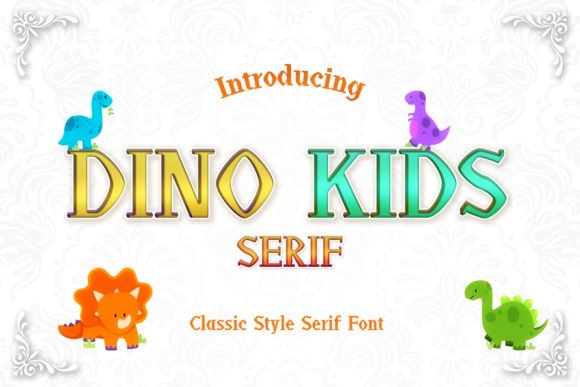
Unleash the Roar of Creativity with Dino Kids Font
Have you ever been working on a project, staring at a blank page, trying to find the perfect font to bring your ideas to life? That’s exactly where I was when I stumbled upon the Dino Kids Font. Its bold and authentic serif style immediately caught my attention, and I knew I had to learn more.
The Dino Kids Font is designed to be versatile and adaptable, making it the perfect addition to a wide range of projects. Whether you’re working on a children’s book, a poster, or a website, this font is sure to make your design stand out. As a designer, you know how valuable it is to have a font that can be matched to any project, and the Dino Kids Font delivers.
Dino Kids Font Key Features
- Character Count: The font contains a total of 260 characters, including uppercase and lowercase letters, numbers, and special symbols.
- Unique Characteristics: The Dino Kids Font features a playful, child-friendly design with rounded edges and a bold, yet gentle appearance, making it perfect for children’s educational materials and entertainment products.
Dino Kids Font Review
As a designer, I’ve had the chance to work with the Dino Kids Font, and I must say it’s a unique and fun option for kids’ projects. ✨ One thing that stands out is its playful, energetic vibe, which immediately captures the attention of young audiences. The font’s bold lines and rounded shapes make it perfect for headings and titles.
Here are some key features that I like about the Dino Kids Font:
- ✨ Highly customizable: The font comes with a range of style options, allowing designers to adjust the font’s look and feel to suit their project’s needs.
- ✨ Versatile: Dino Kids Font can be used for a variety of projects, from children’s books and educational materials to advertisements and marketing campaigns.
- ✨ Friendly: The font’s design is child-friendly, making it an excellent choice for projects targeting young audiences.
- ⚠️ Limited legibility: At smaller font sizes, the Dino Kids Font can become difficult to read, which may be a concern for projects requiring text-heavy content.
- ⚠️ Limited language support: The font may not support non-English languages, which could limit its use in international projects.
Overall, I think the Dino Kids Font is a great option for designers working on kids’ projects, but it’s essential to be aware of its limitations. With careful use and attention to detail, this font can add a fun and engaging touch to your designs.
The Dino Kids Font is ideal for:
– Children’s book illustrations
– Educational materials
– Party invitations and decorations
– Branding for kids-related businesses
To get the most out of the Dino Kids Font, try combining it with other playful fonts and graphics to create a fun and engaging visual style. Experiment with different font sizes and colors to add emphasis and visual interest.